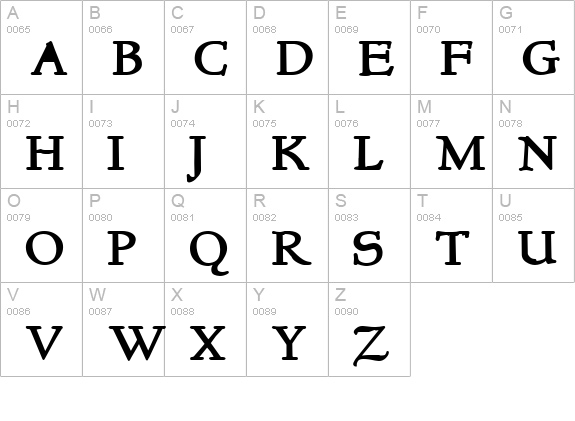
NewStyle Bold is a strong, high-contrast variant in the NewStyle typeface family \xE2\x80\x94 well suited to headlines, attention-grabbing titles, and strong calls-to-action.
Introducing NewStyle Bold font, a sleek and modern typeface that exudes confidence and sophistication. With its bold and assertive design, NewStyle Bold is perfect for making a statement in your designs. This versatile font is ideal for headlines, posters, logos, and more, adding a touch of boldness and elegance to any project. And the best part? NewStyle Bold font is completely free to download at FontsMarket.com. Yes, you read that right - you can elevate your designs with this premium font without spending a dime. So why wait? Download NewStyle Bold font today and take your creations to the next level!